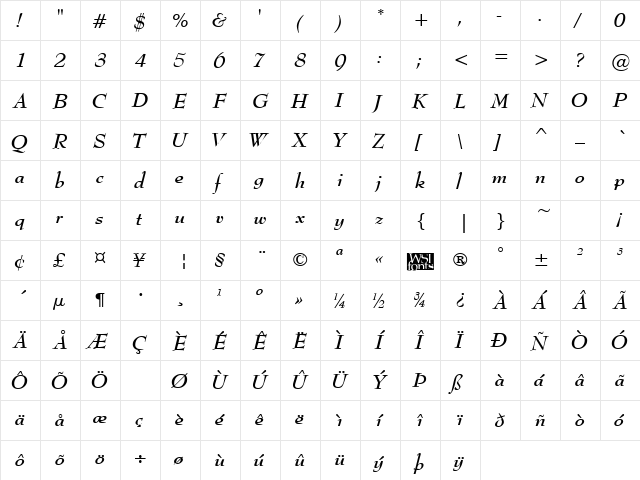
Bernadette Bold Italic Font Preview
Design Context for Bernadette Typeface
Bernadette offers clean, dependable letterforms without strong stylistic allegiance, making it a practical choice for designers who need flexibility. Its italic angle brings a sense of urgency and motion to the letterforms. The heavy weight commands attention and anchors typographic hierarchies.